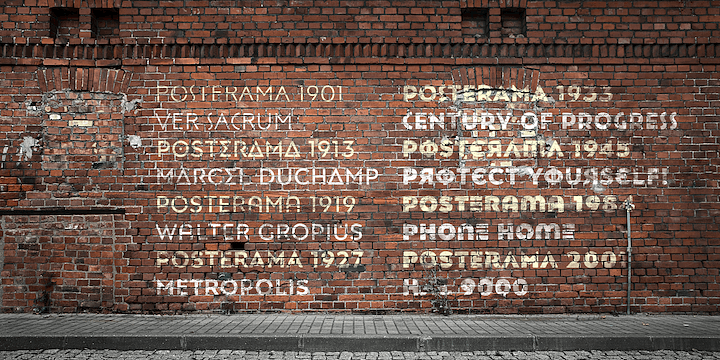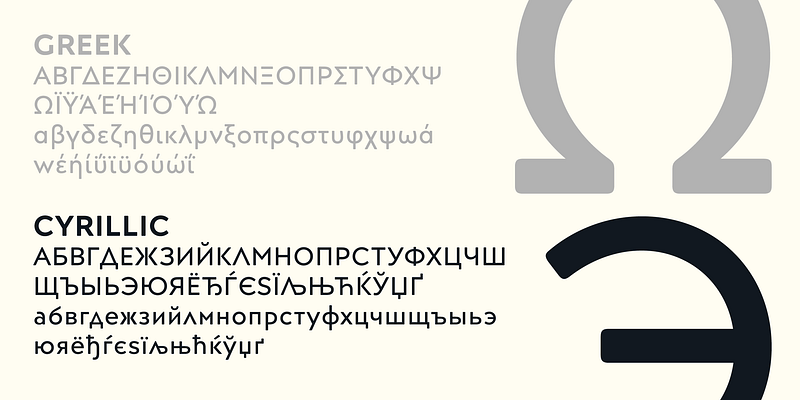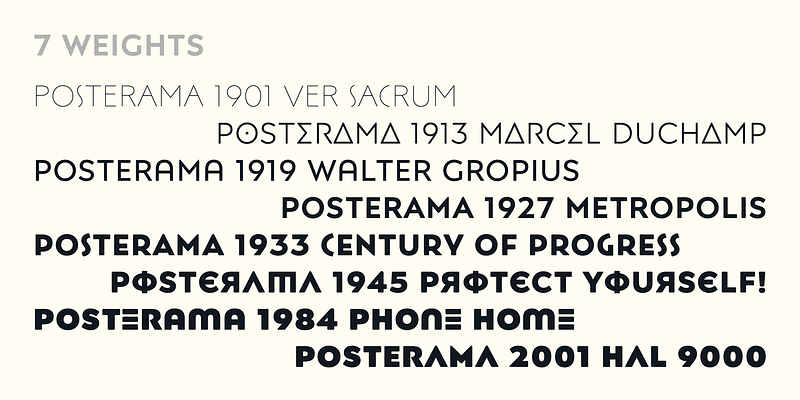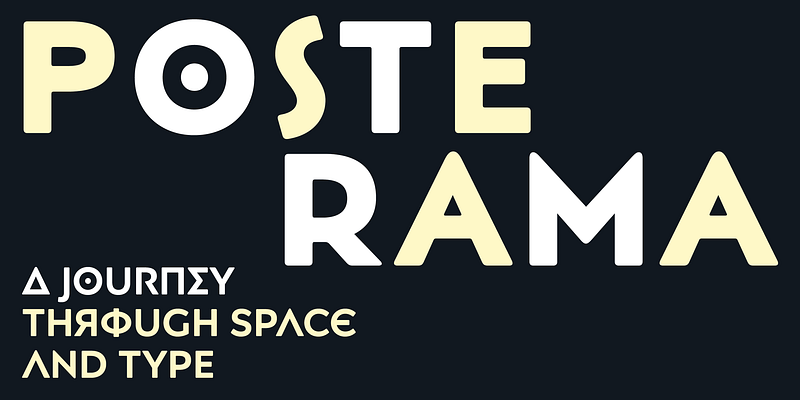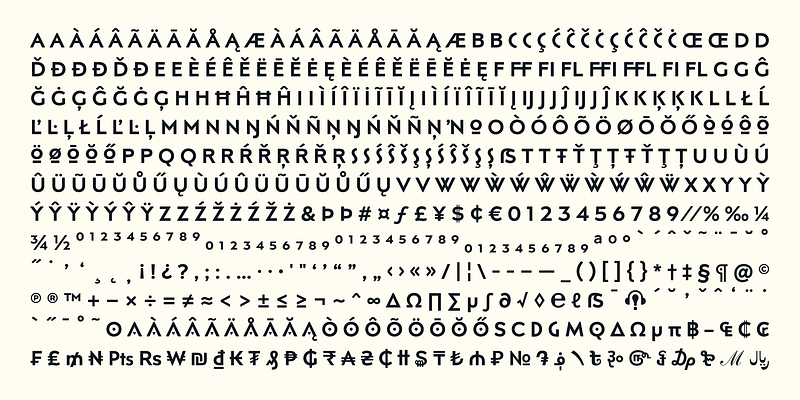
The Posterama™ typeface family contains 63 fonts and is a true journey through space and time. Designed by Jim Ford, each Posterama family contains 7 weights from Thin to Ultra Black, in 9 distinct families. What makes Posterama so unique and versatile are the eight alternative display families. By making use of a collection of alternative glyphs, Posterama sets an evocative flavor to visualize an entire century of futuristic reference points from art, architecture, poster design and science fiction into one family.Posterama Text is the base family. It has the most robust character set including upper and lowercase glyphs and pan-European language support (including Greek and Cyrillic). Note: all the other Posterama variants described below do not have lowercase letters or Greek and Cyrillic support.Posterama 1901 recalls the decoratively geometric style of Art Nouveau from the turn of the 20th century. Letterforms such as the slender, snaking ‘S’, the high-waisted ‘E’ and the underlined ‘O’ revive the spirit of Charles Rennie Mackintosh and the designers of the Viennese Secession.Posterama 1913 pays homage to the Armory Show, or 1913 Exhibition of Modern Art, which brought the revolutionary work of European artists such as Picasso, Duchamp and Kandinsky to the US for the first time to the shock and astonishment of press and public. Near-abstract, angular characters such as the ‘A’, ‘E’ and ‘N’ hint at cubism’s jagged and clashing planes.Posterama 1919 uses a small, but important, variation to set a tone when the Bauhaus was founded, and the surge in radical European typography that followed. The straight-sided, roundheaded ‘A’ adds a flavor of 1919 – this style of ‘A’ can still be seen in the Braun logo, designed in 1934.Posterama 1927 captures the year of Metropolis, The Jazz Singer and Paul Renner’s pioneering, geometric Futura typeface from 1927, which had a profound influence on design in the US and Europe.Posterama 1933 – With its low-waisted, sinuous designs, the Posterama 1933 typeface family echoes lettering of the Art Deco period, which in turn had its roots in Art Nouveau, the key influence on Posterama 1901. The two fonts make a great team and can be used interchangeably.Posterama 1945 features a few Cyrillic characters to conjure up an era when Russian art and political posters made their mark in cold war propaganda, espionage and also giant aliens and monsters.Posterama 1984 takes its typographic influences from George Orwell’s classic novel, publicity for the dystopian action and sci-fi movies (Blade Runner, Videodrome and Terminator) and games like Space Invaders and Pac-Man that made an impact at that time.Posterama 2001 was inspired by Stanley Kubrick’s science fiction masterpiece, which made extensive use of the Futura typeface. Posterama 2001 finds its cosmic orbit with its nosecone-style ‘A’ from NASA’s much-missed ‘worm’ logotype. There’s an echo, too, in Bauhaus designs from as early as 1920, whose minimalist, geometric lettering also featured a crossbar-less ‘A’.